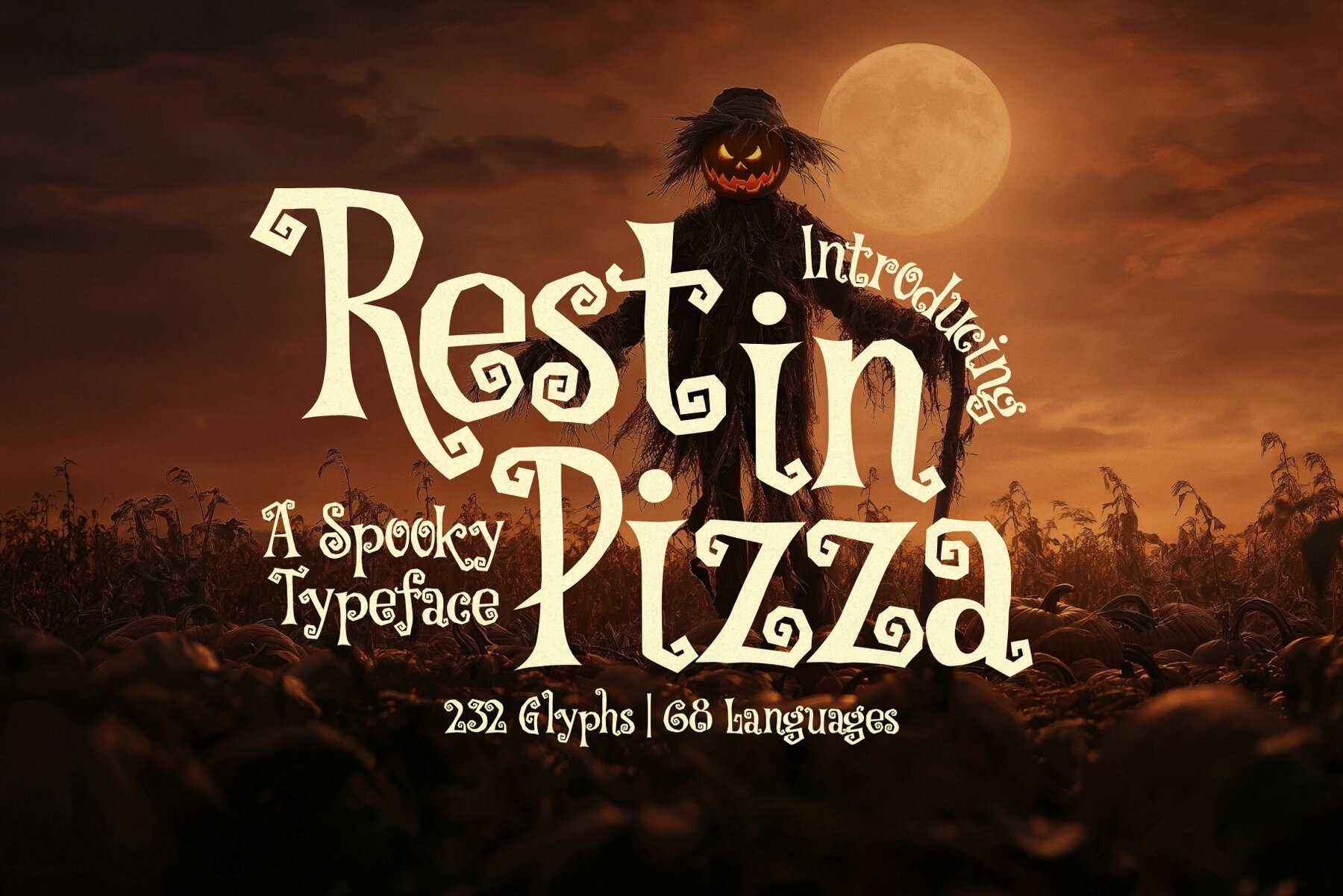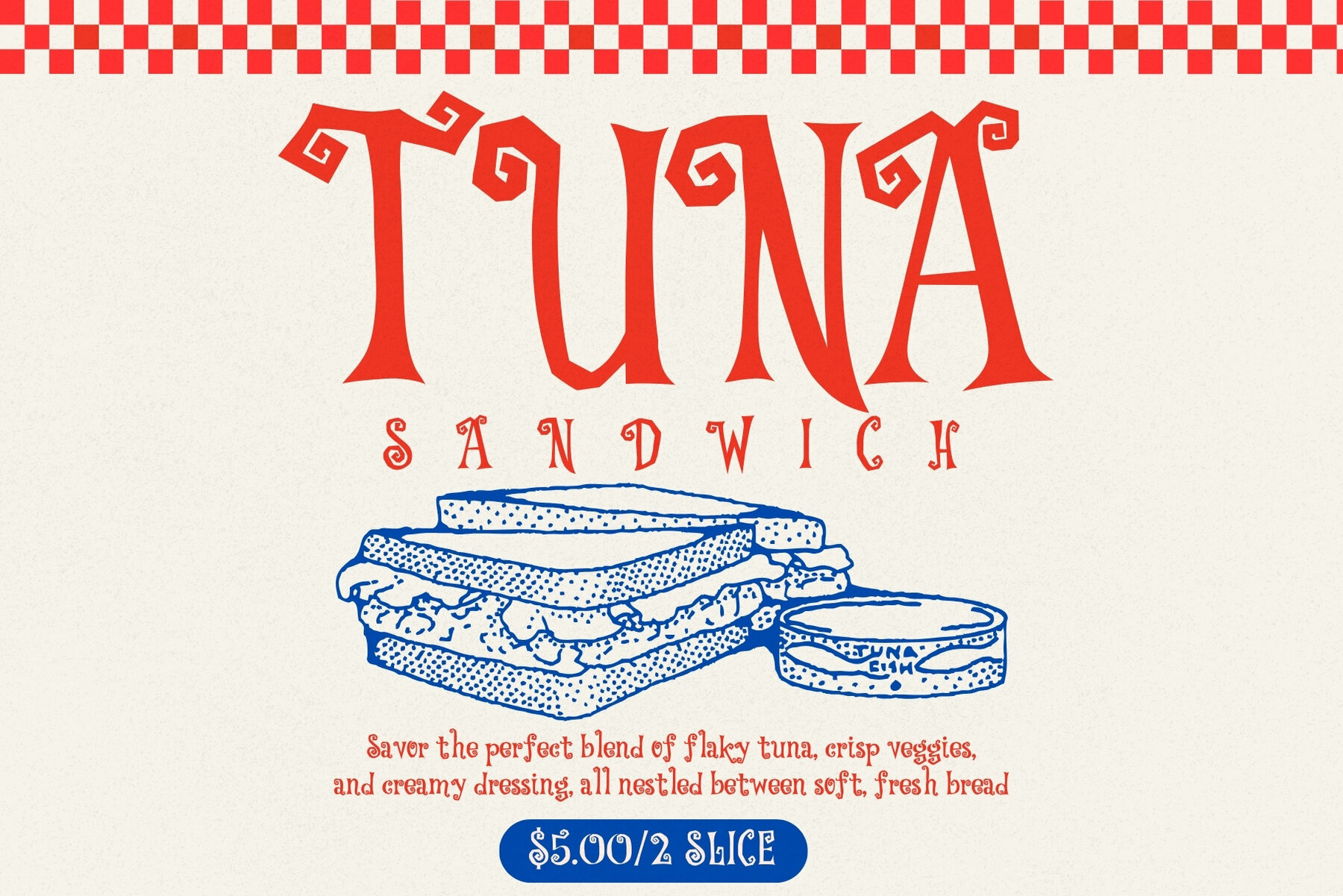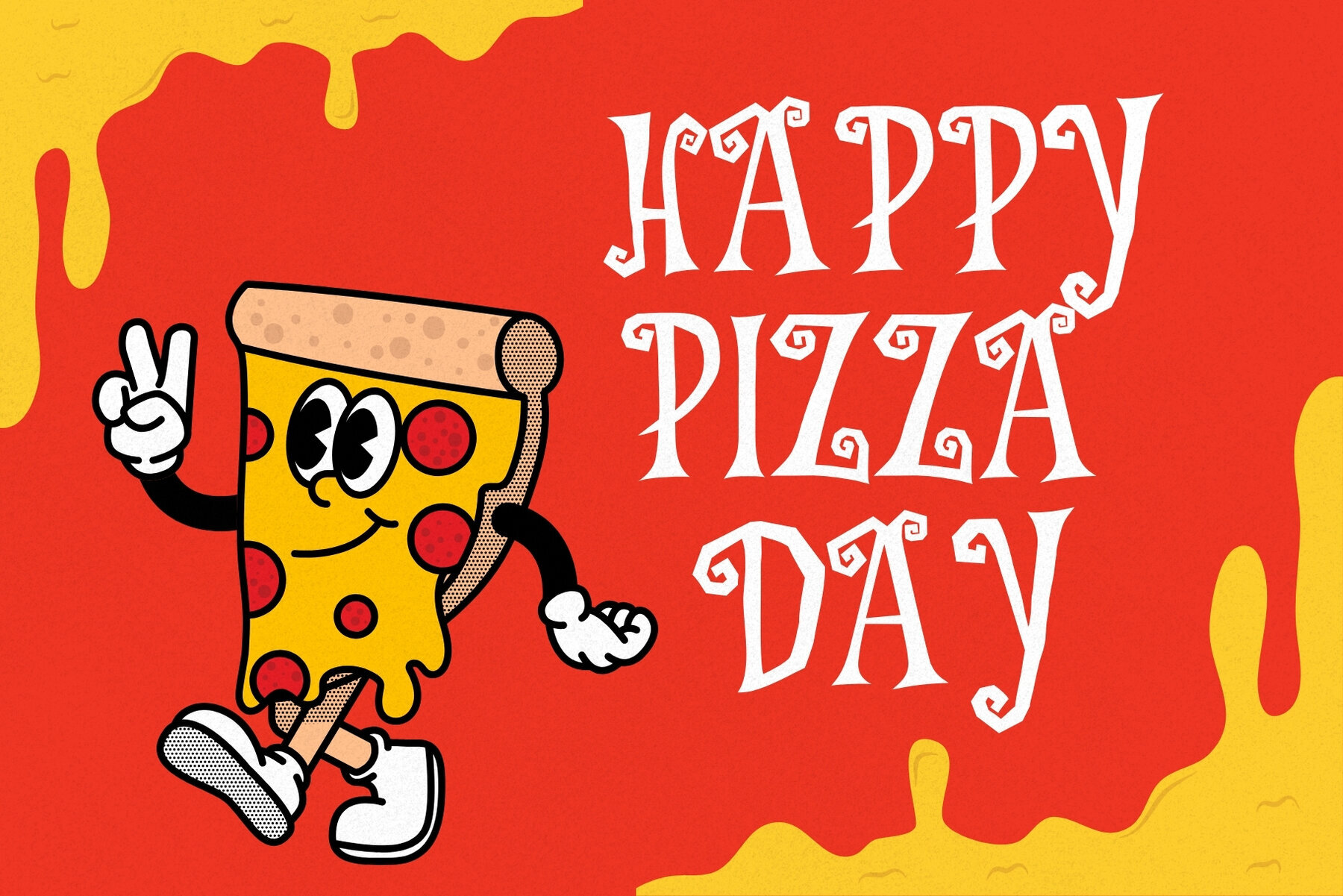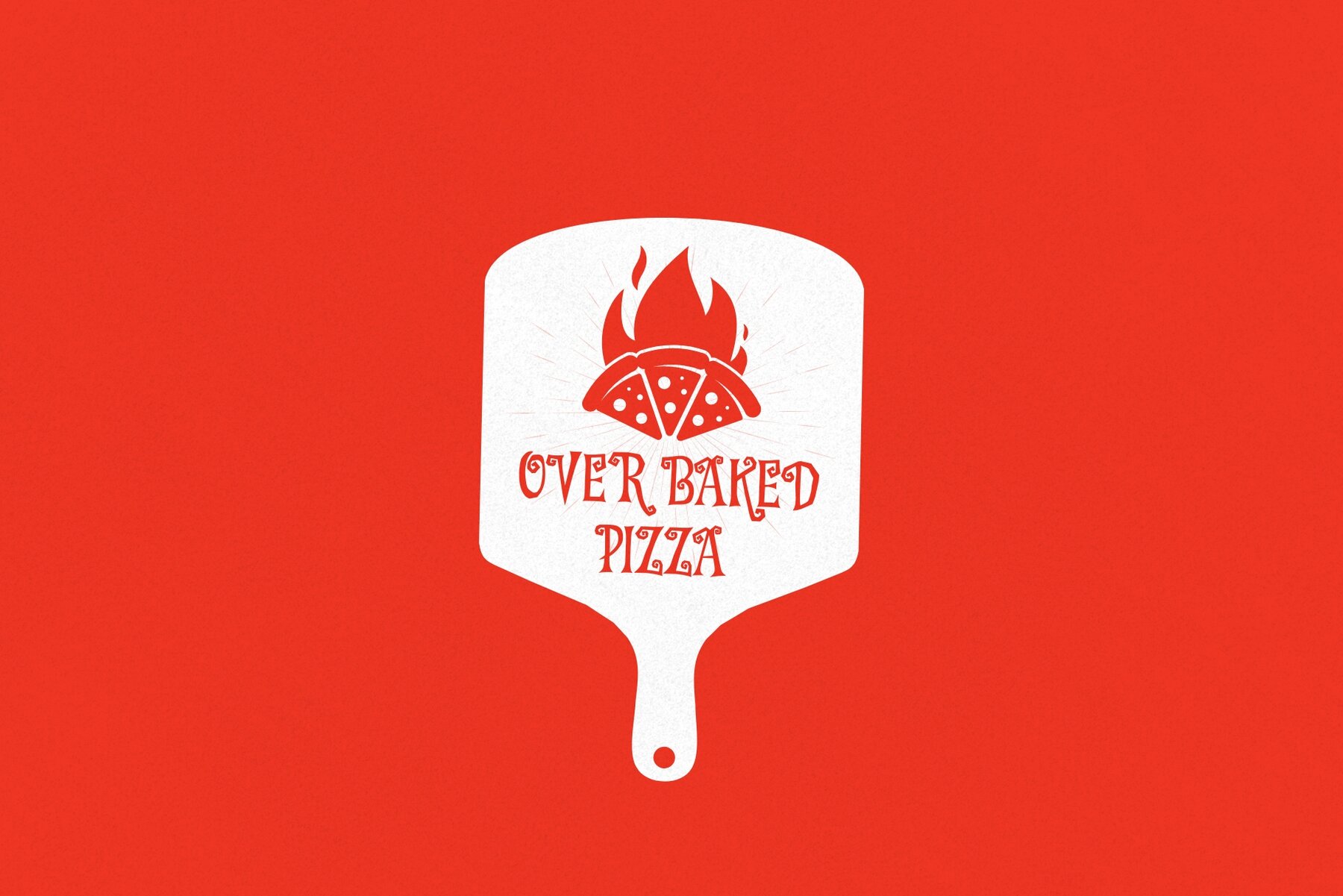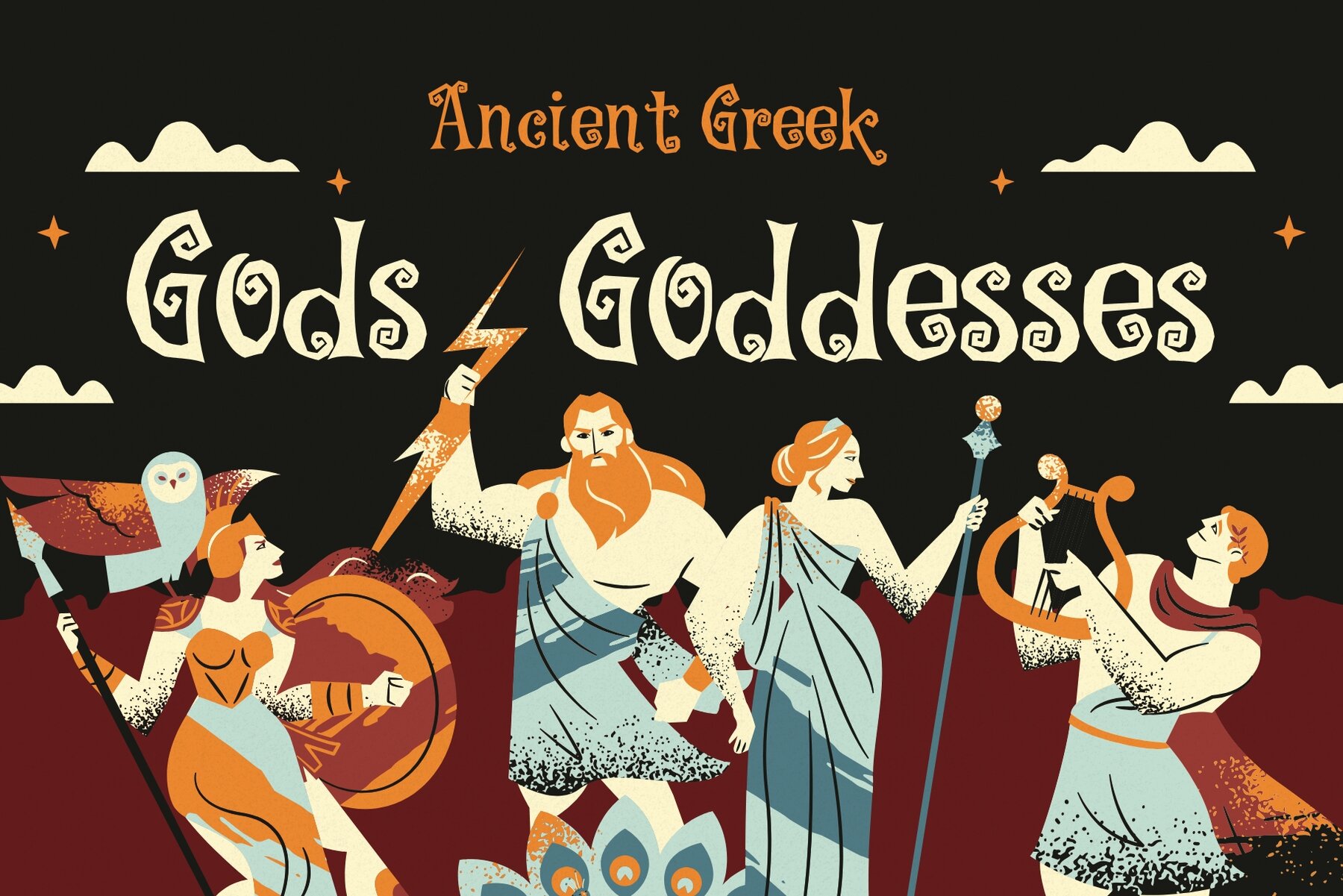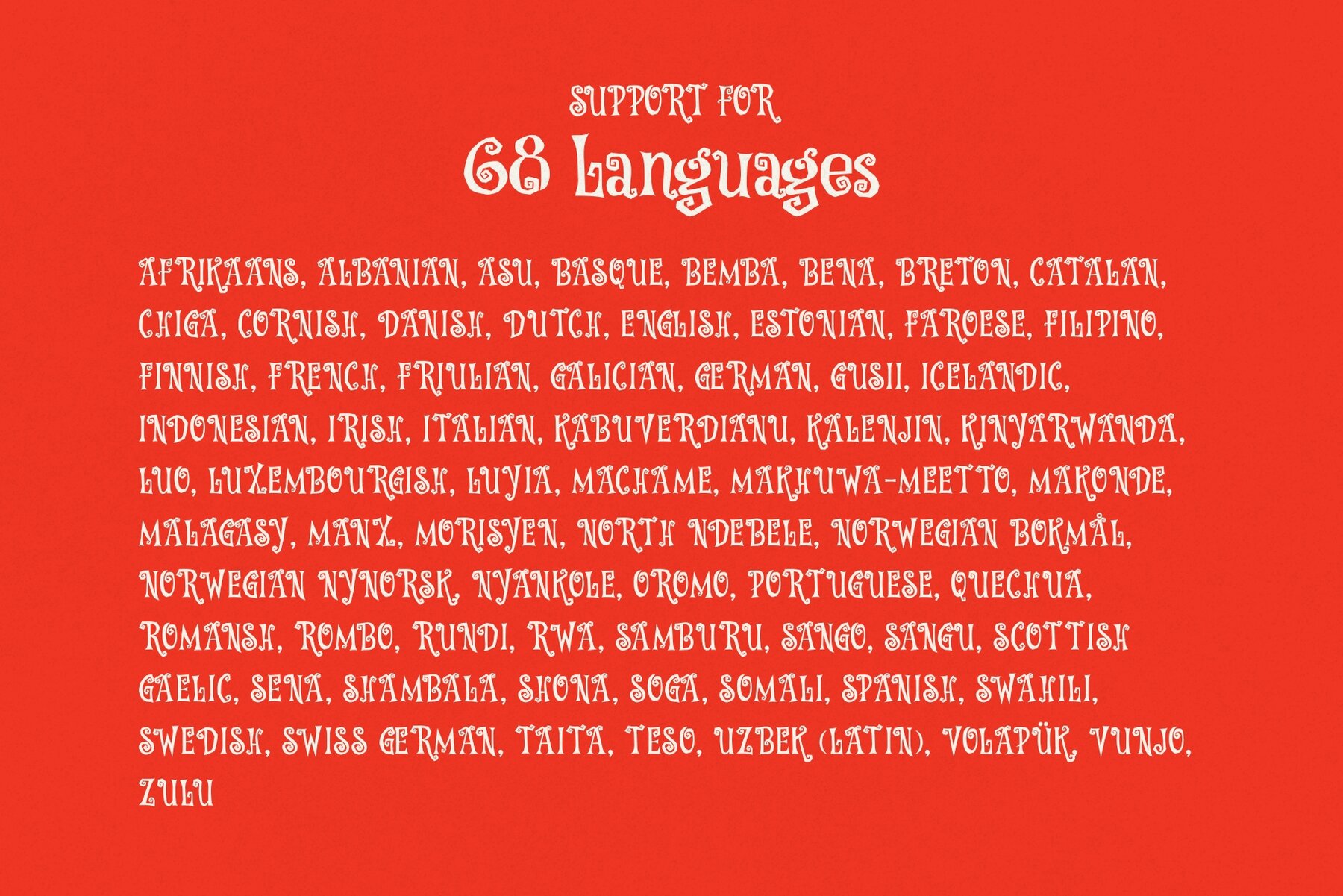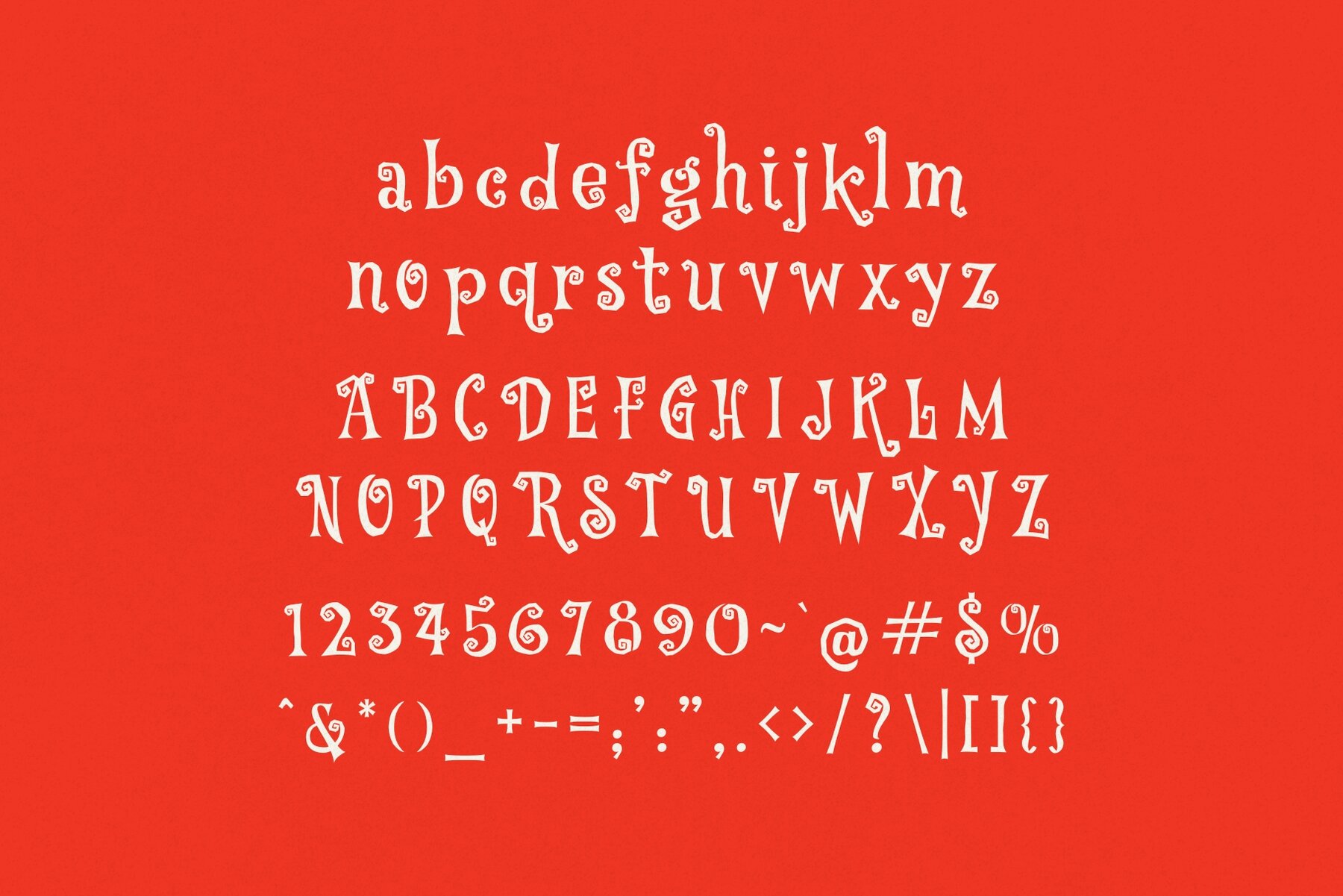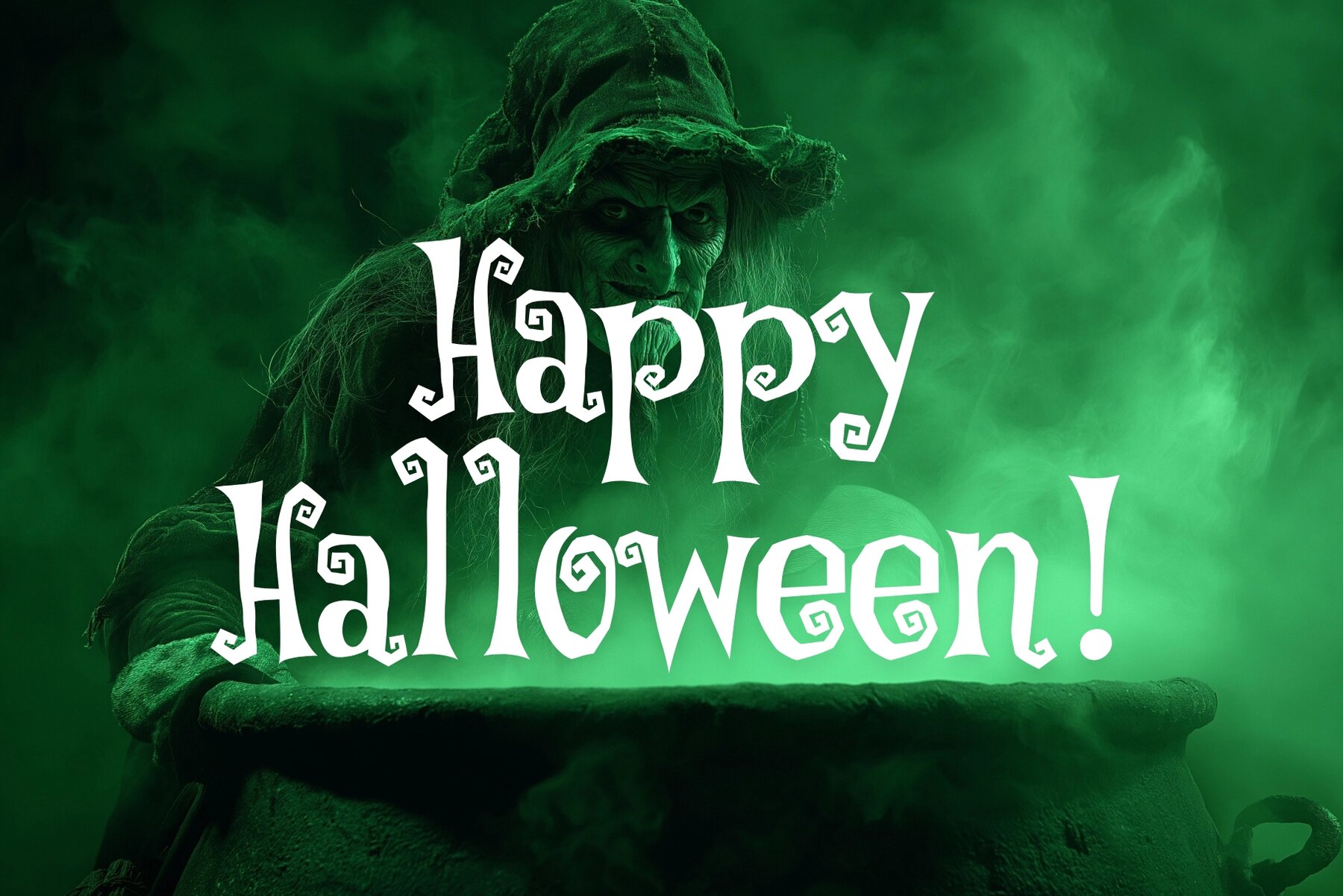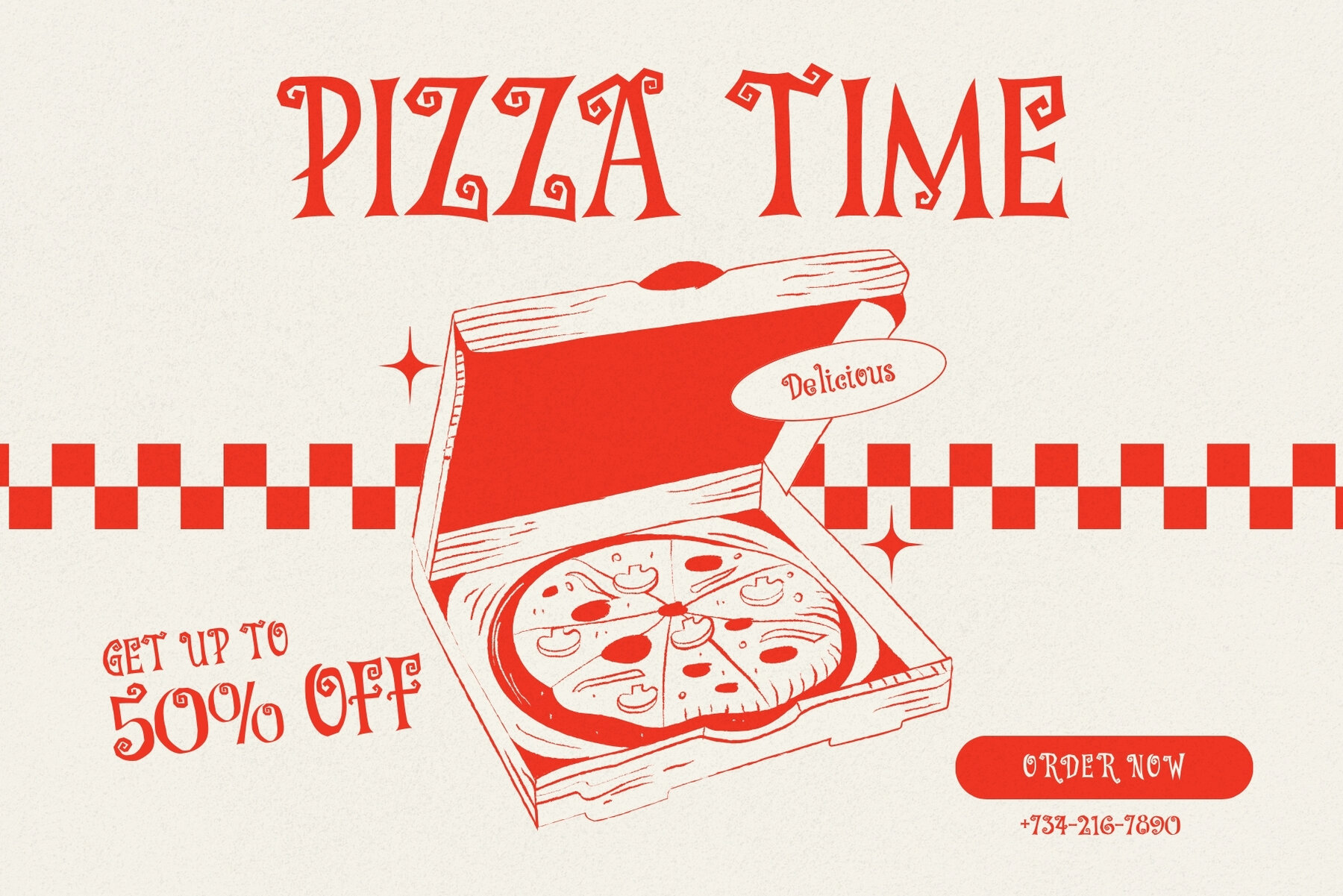
Rest in Pizza Font
Rest in Pizza combines quirky, spooky vibes with distinct ancient Greek-inspired letterforms. This unique typeface captures both Halloween charm and the bold character of classic inscriptions, giving your designs a standout presence. Each glyph carries a whimsical touch, bringing humor and intrigue into every project. With an extensive set of 232 glyphs and support for 68 languages, creative opportunities abound. Whether you're designing titles, menus, posters, or branded visuals, Rest in Pizza adds memorable personality. Its bold, chiseled look—enhanced by offbeat curves—ensures your work stands apart in playful, unexpected ways.Rest in Pizza Typeface—A Playful Halloween Greek Twist